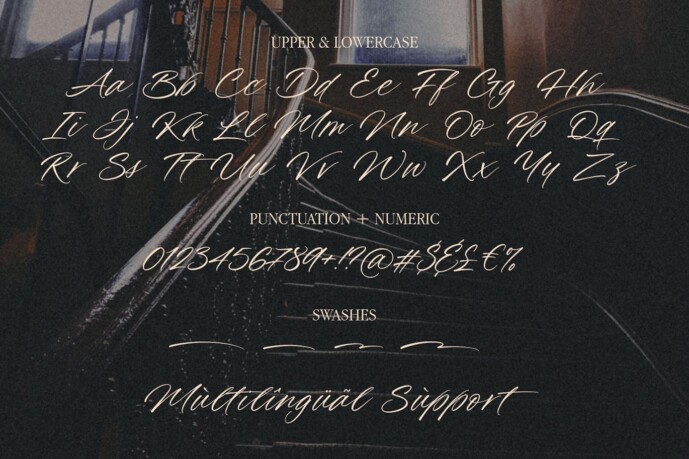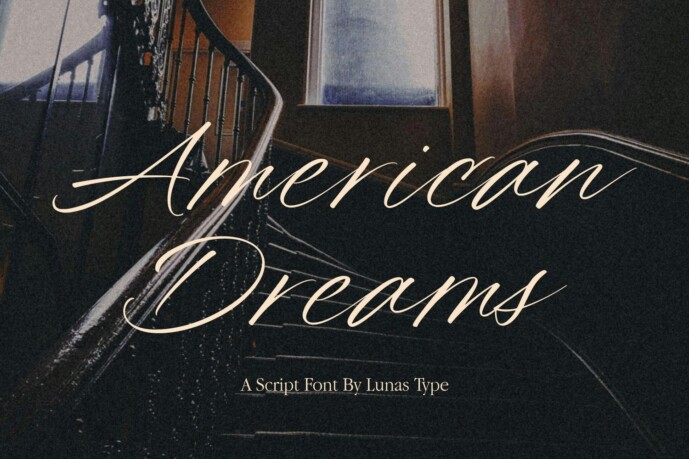
American Dreams Font
Designer: Letteralle
American Dreams Font is an enchanting script font that effortlessly captures the essence of fluid handwriting designed by Annas Alam Yahya. With its graceful curves and intricate details, this font embodies the elegance and personal touch of a signature style. Inspired by the art of calligraphy and the spirit of individual expression, American Dreams adds a touch of sophistication to any design project. Its flowing letterforms dance across the page, creating a harmonious balance between elegance and spontaneity. Whether used for invitations, branding, or creative displays, this font brings a sense of charm and uniqueness to your designs. Elevate your creations with American Dreams and let its captivating script signature leave a lasting impression on your audience.